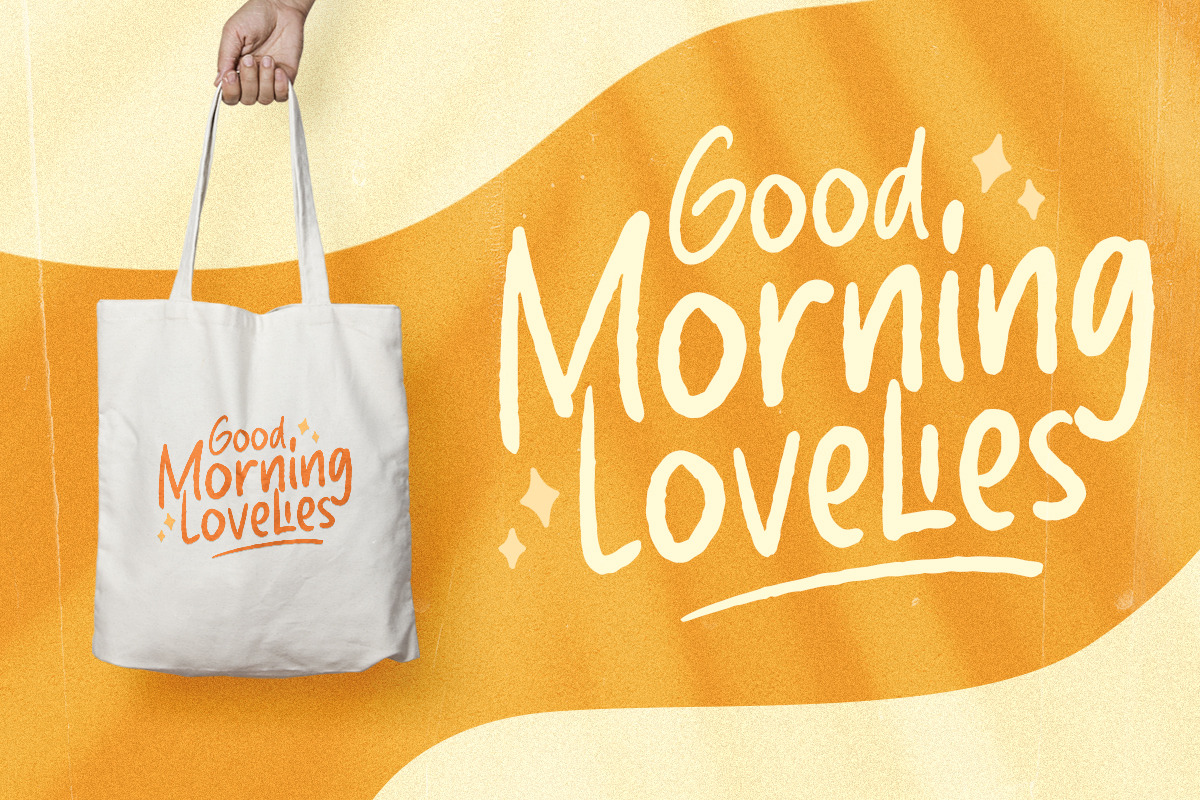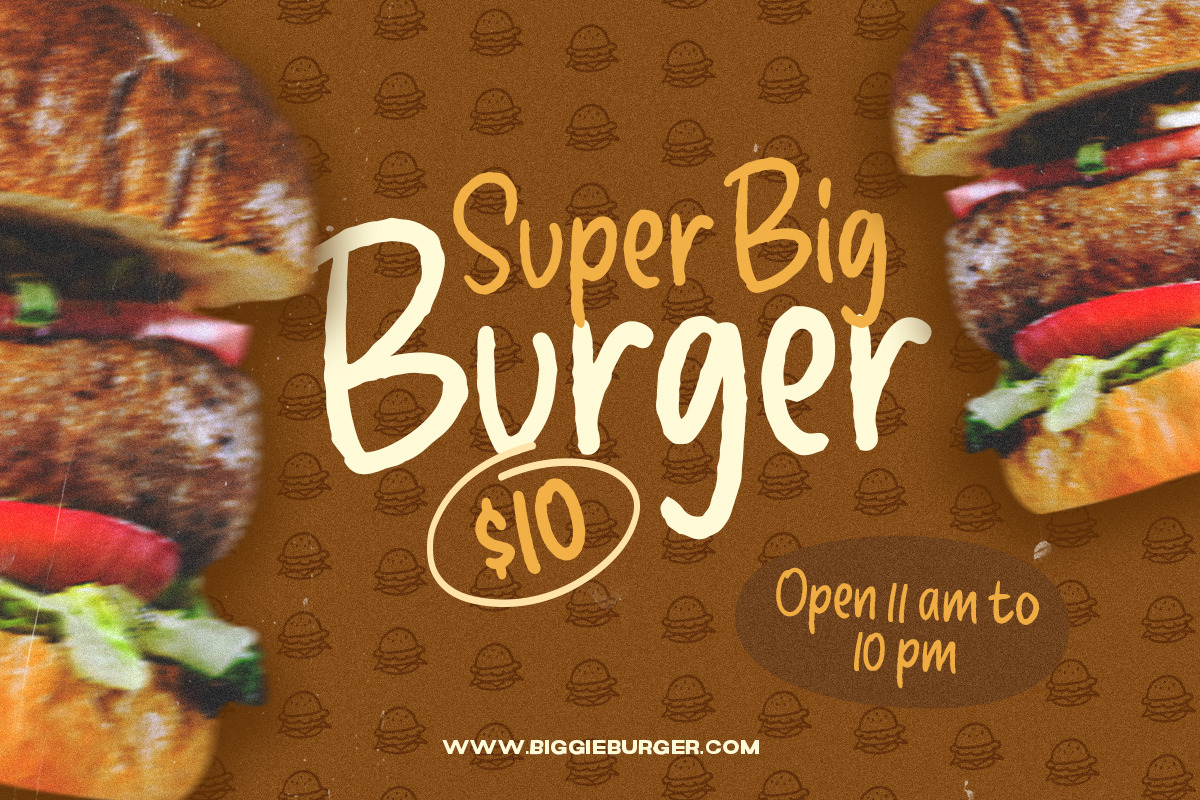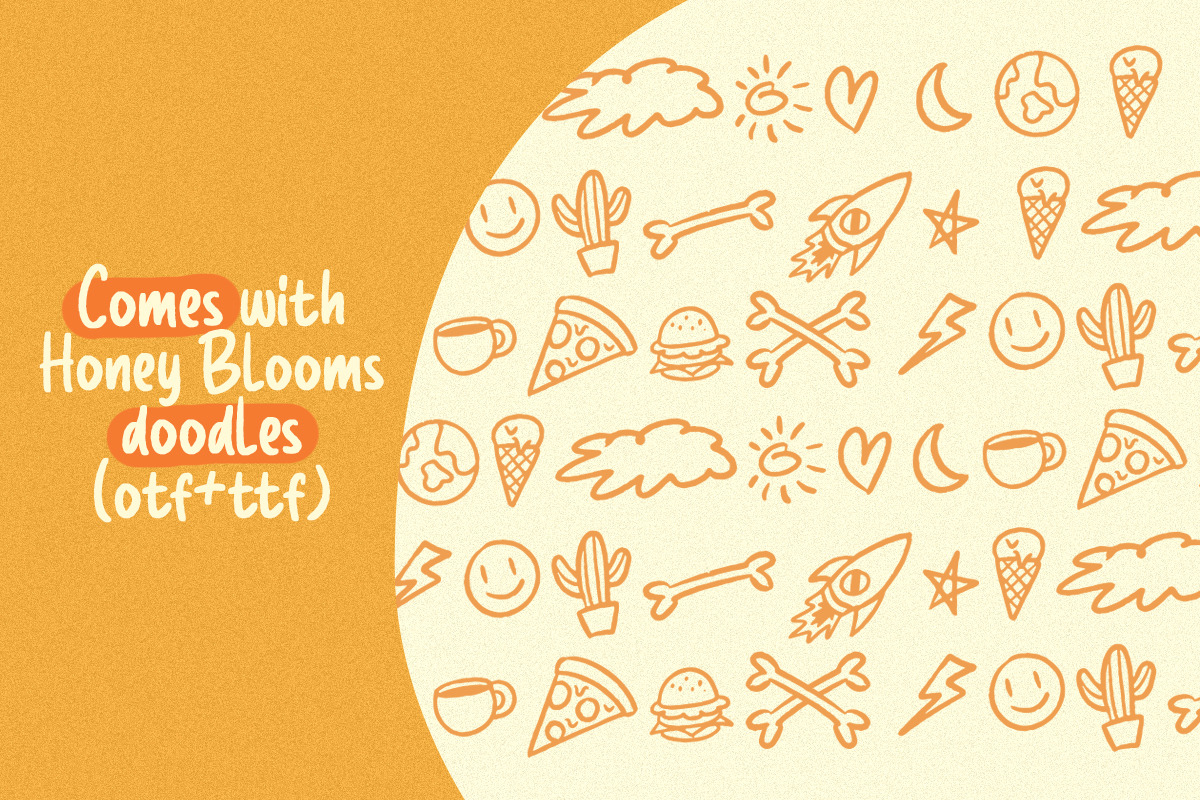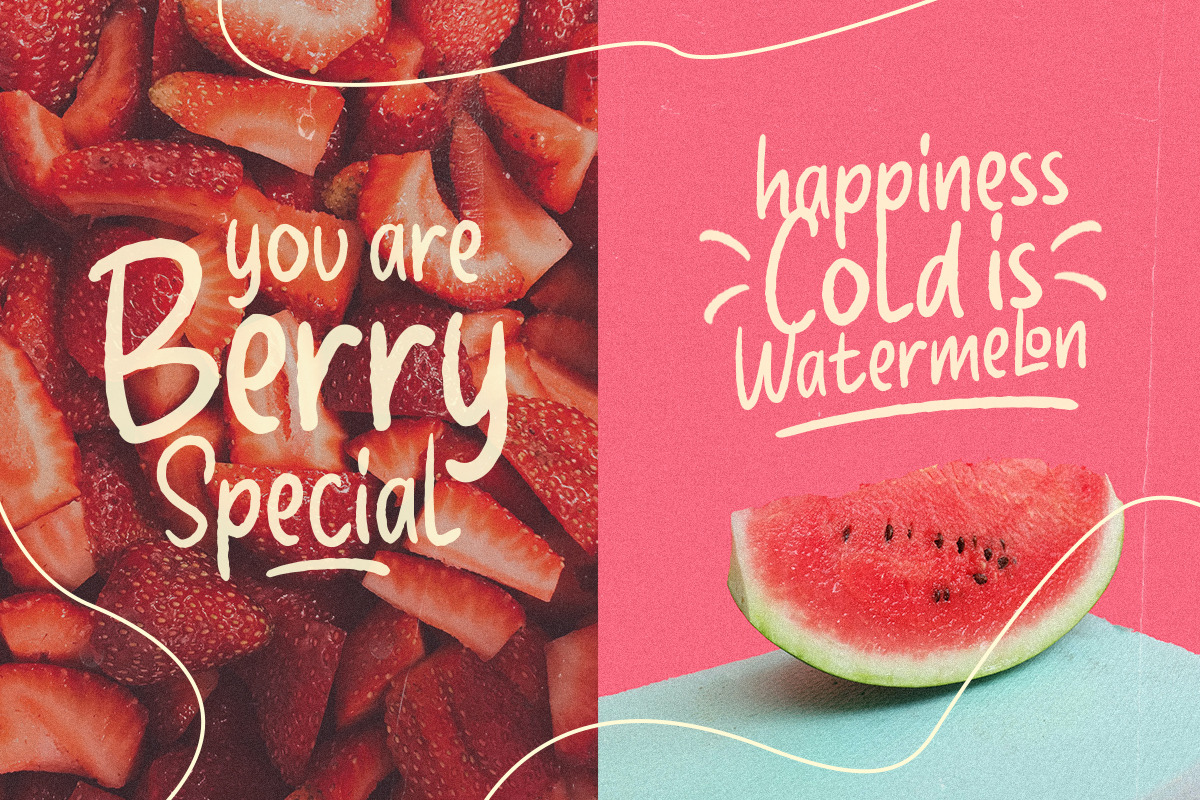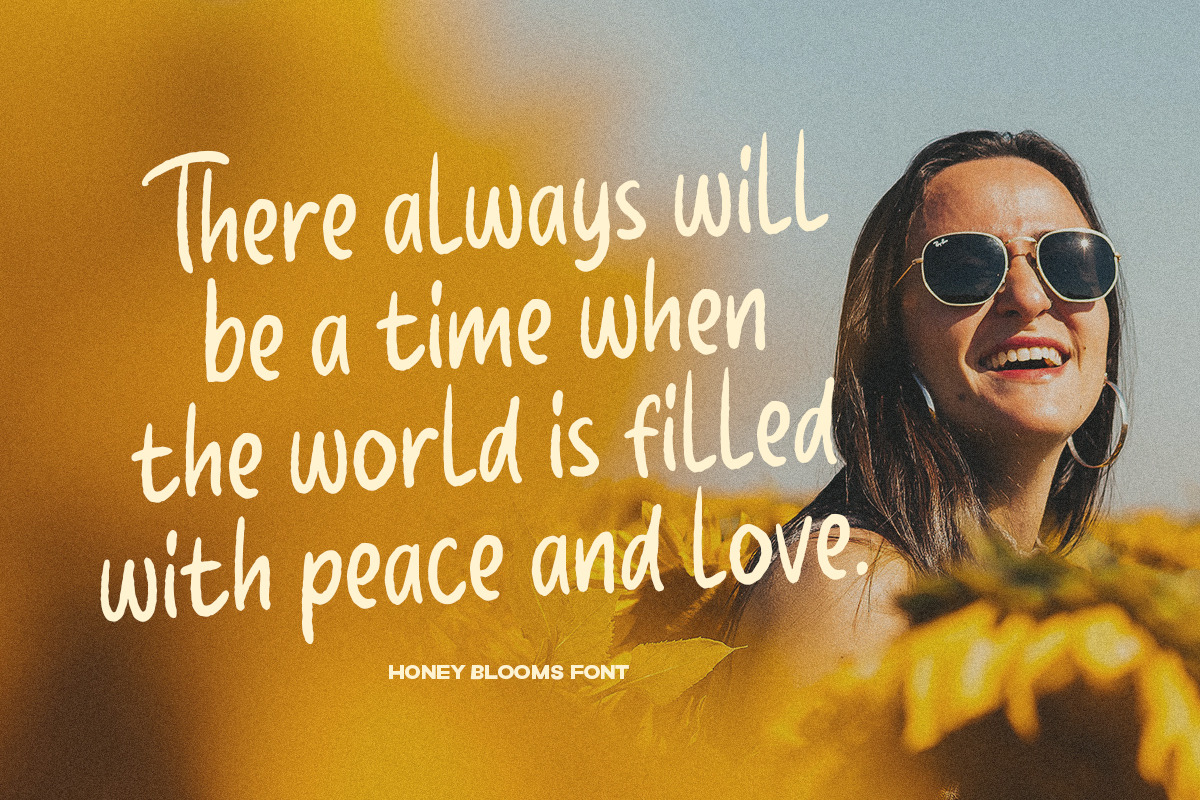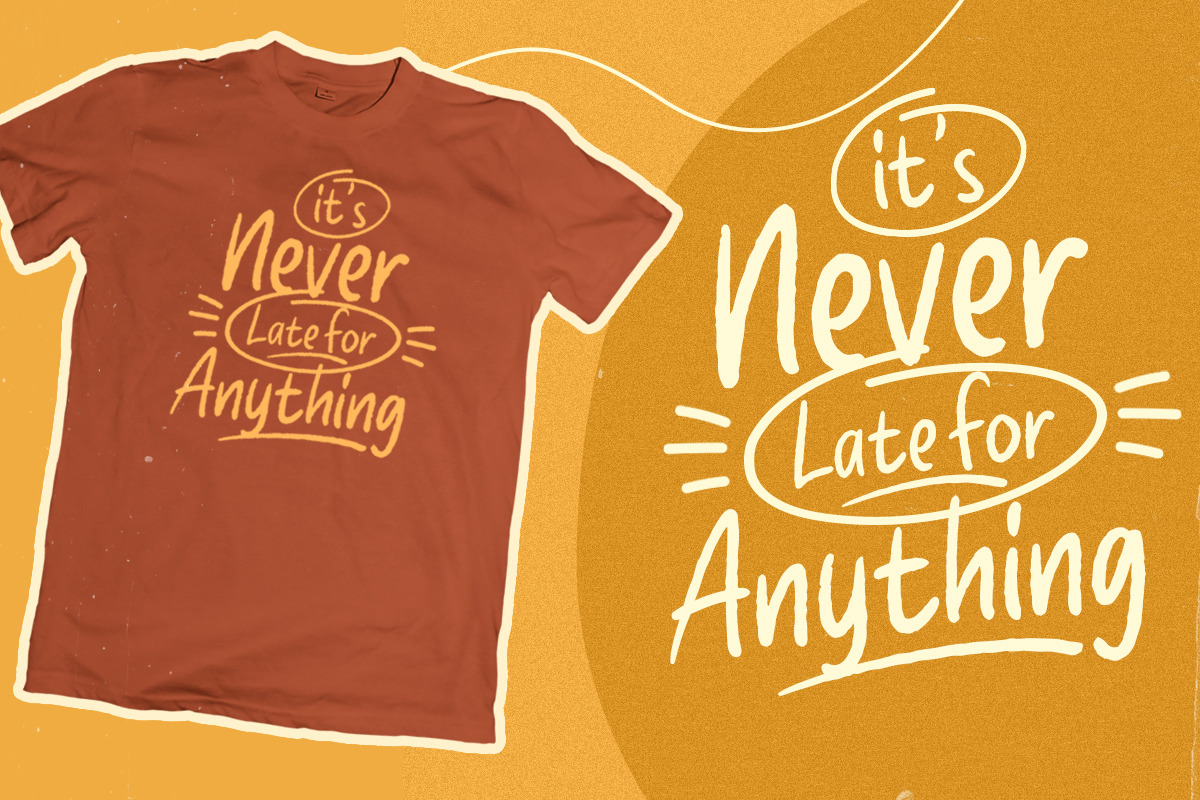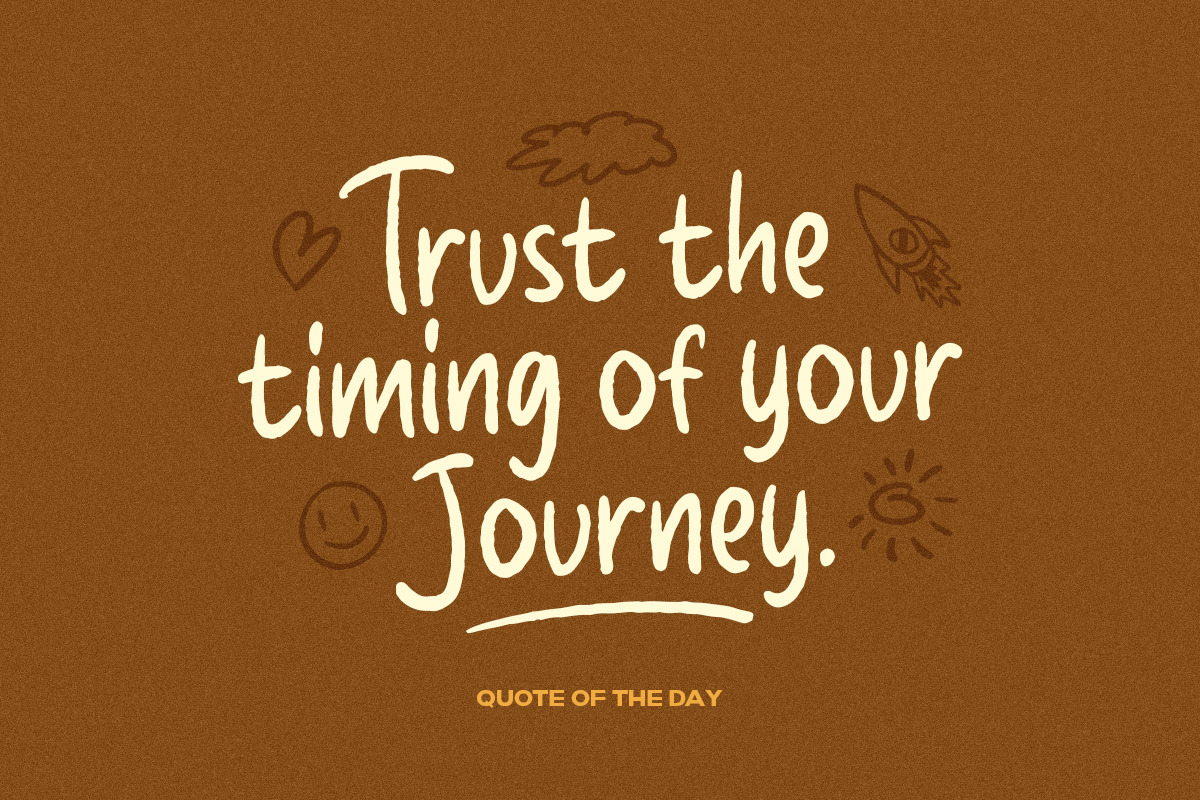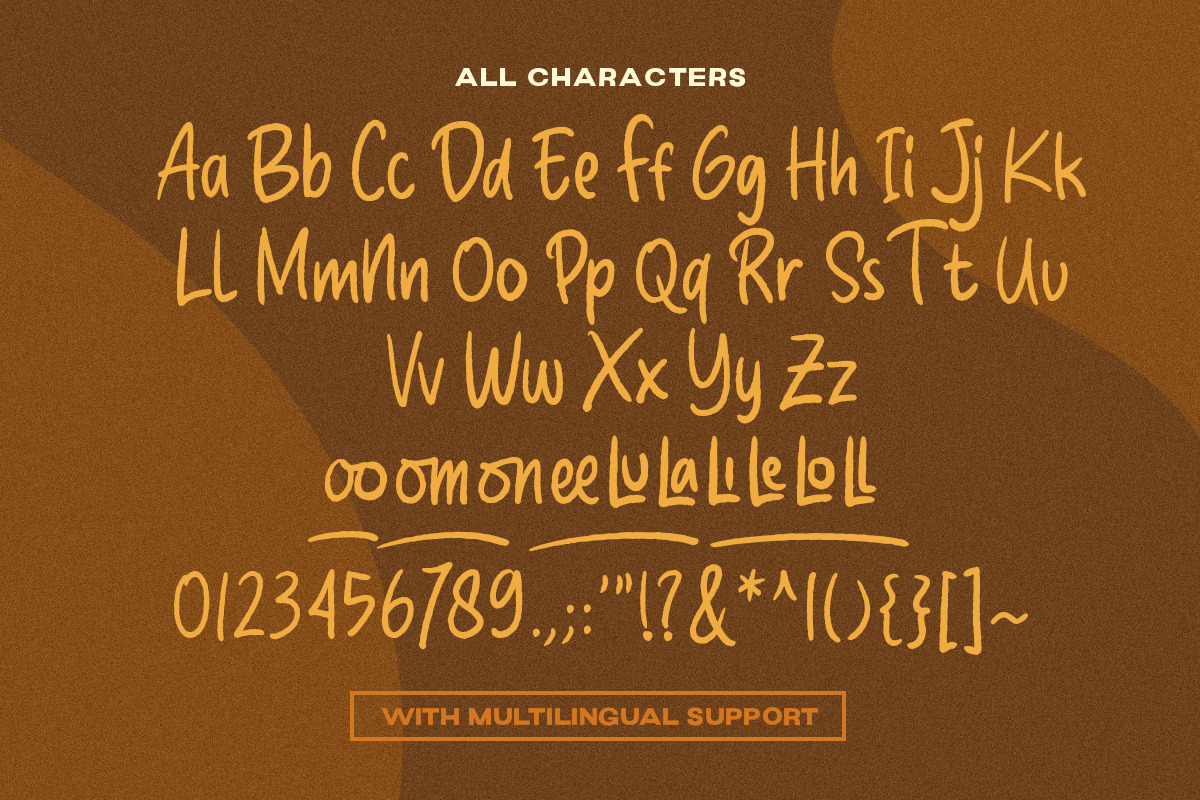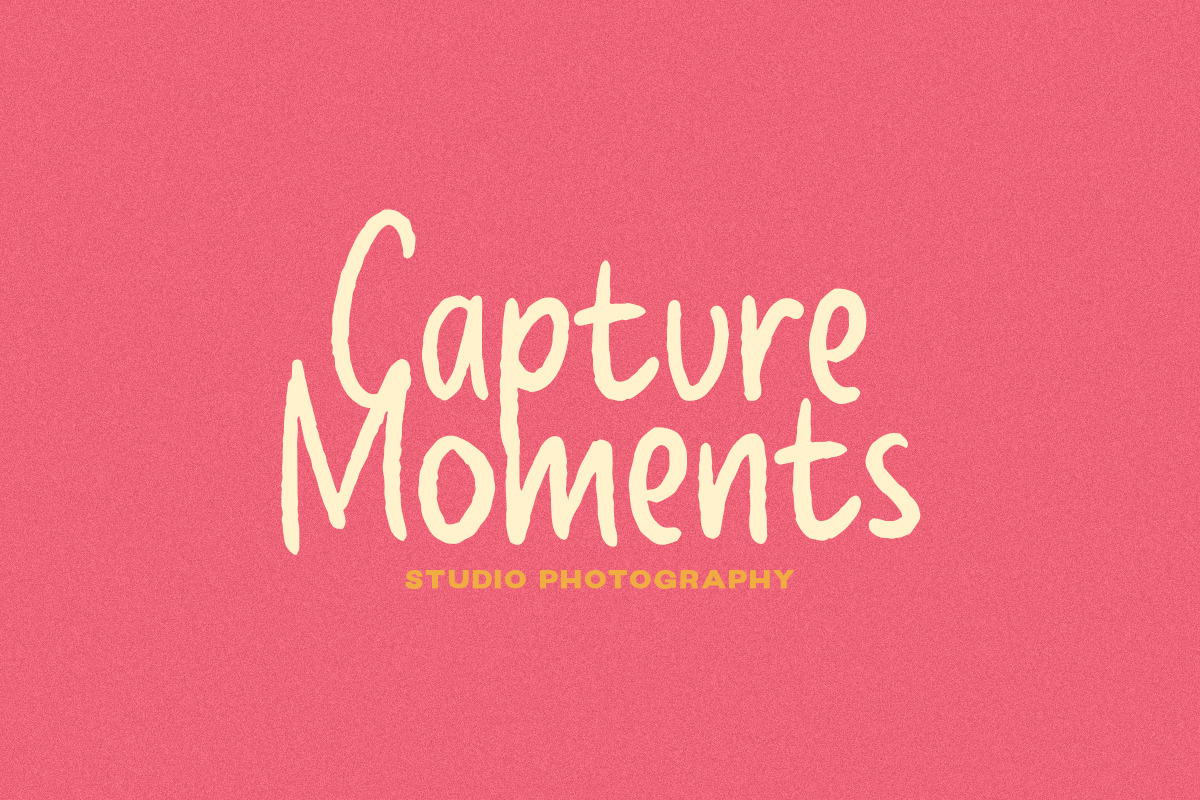
Honey Bloom - Handwritten Marker
Honey Blooms is a charming handwritten font that captures the whimsy and playfulness of a marker-style. With its fluid strokes and organic feel, this font brings a touch of warmth and authenticity to your projects.
This font perfectly made to be applied especially in logo, and the other various formal forms such as invitations, labels, logos, magazines, books, greeting / wedding cards, packaging, fashion, make up, stationery, novels, labels or any type of advertising purpose.